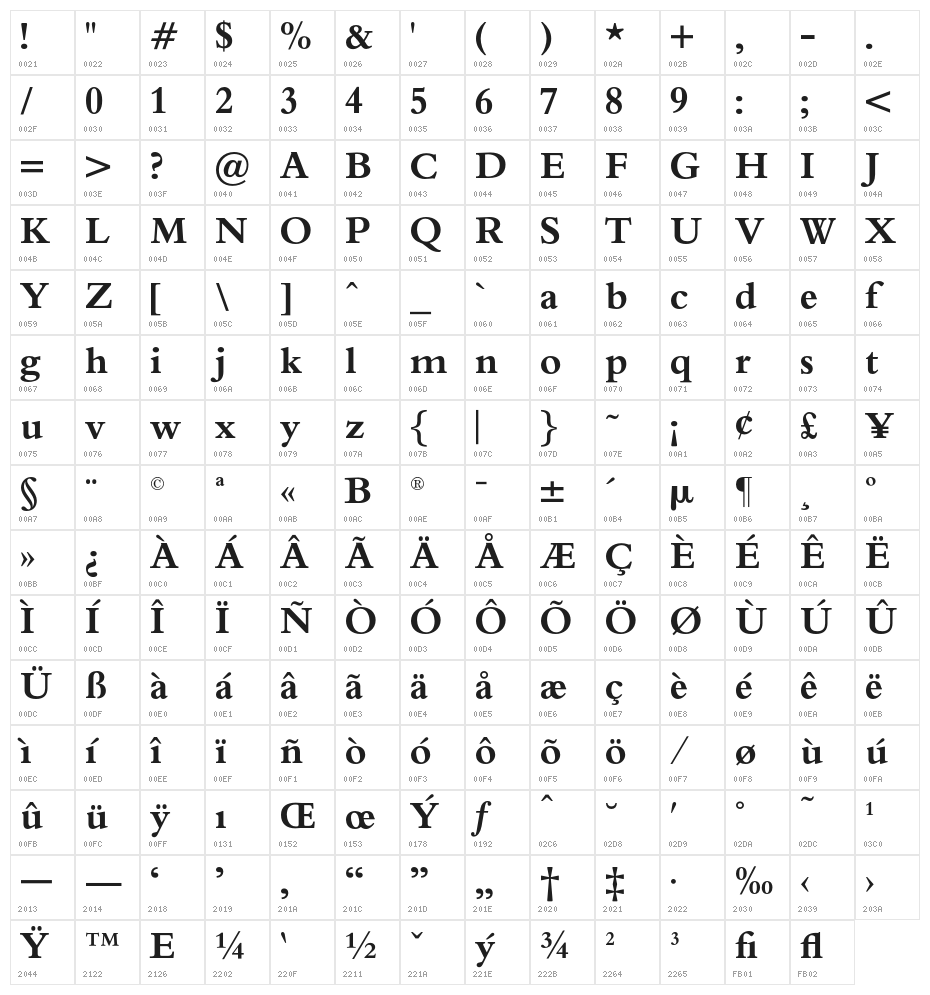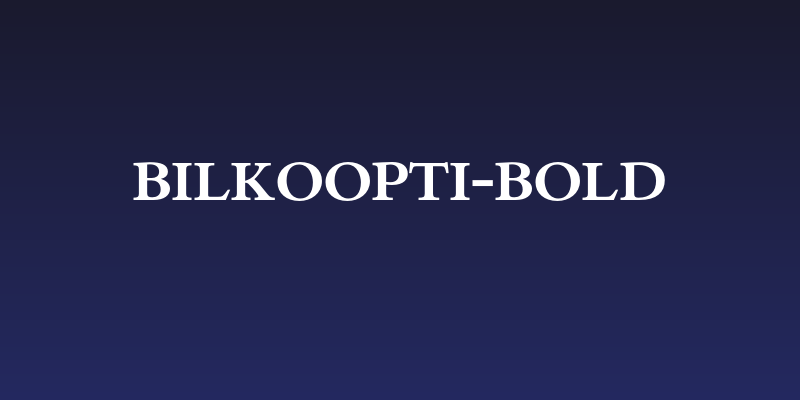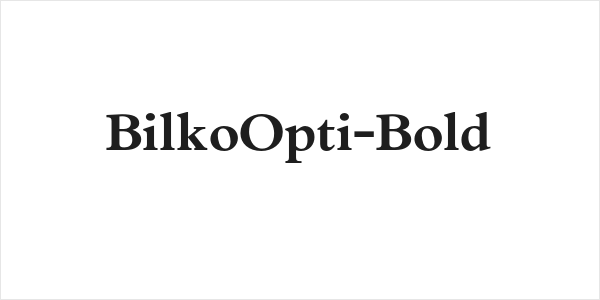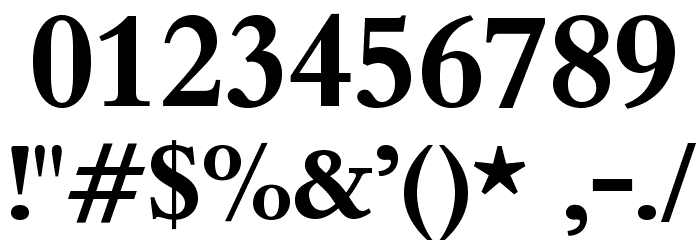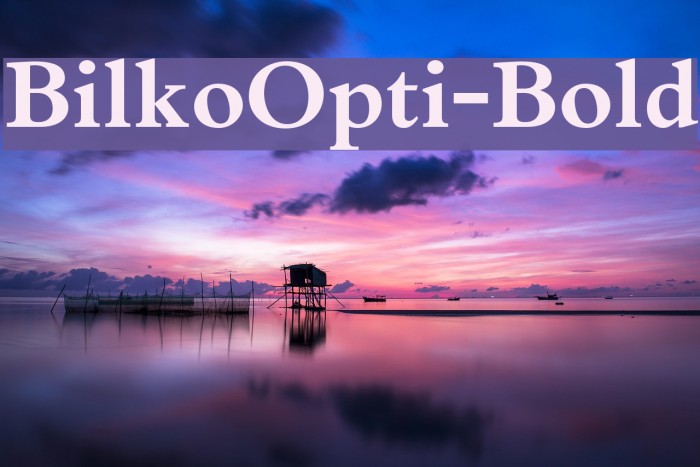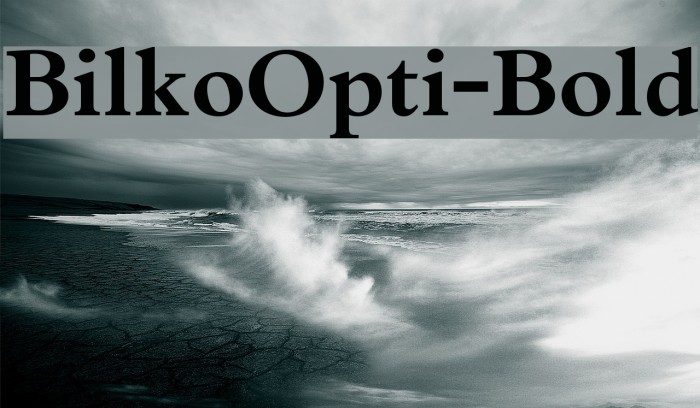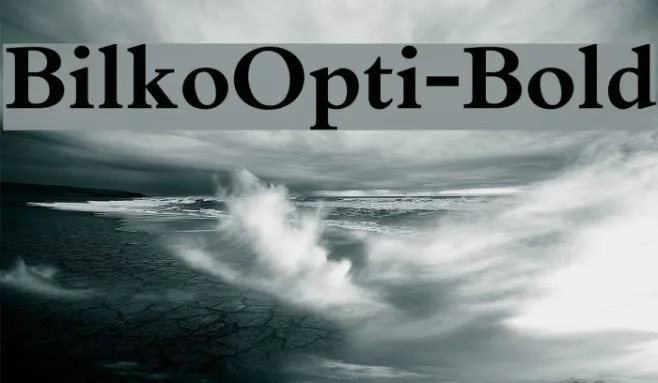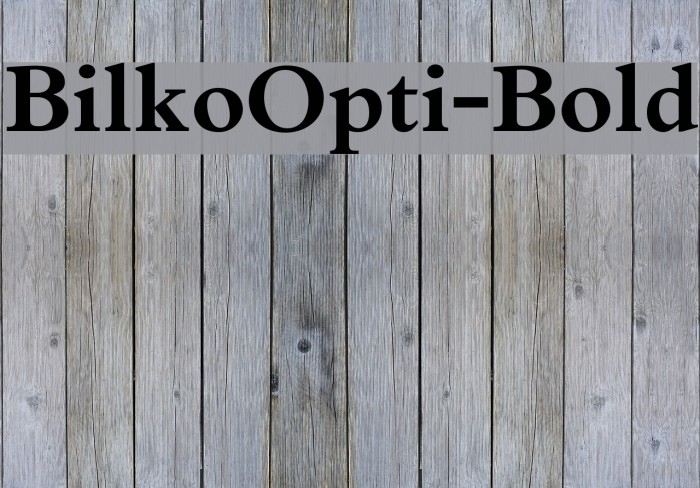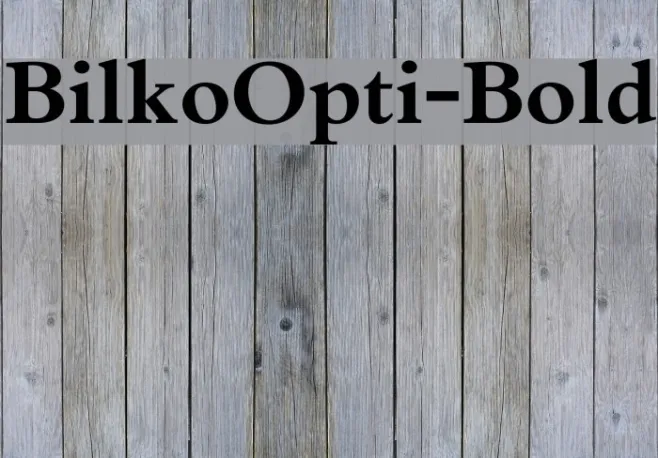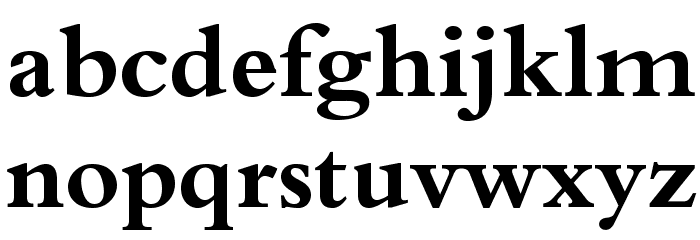
BilkoOpti-Bold Font
BilkoOpti-Bold Description
This font is a bold serif typeface characterized by its strong, authoritative presence. The uppercase letters exhibit a classic serif style with pronounced, sharp serifs that enhance readability and lend a traditional feel. The lowercase letters maintain a consistent weight, offering a balanced and harmonious look. Numbers are clear and robust, making them suitable for both display and text purposes. Special characters are well-defined, ensuring versatility across various applications. The overall design is timeless, combining elegance with functionality, making it ideal for formal and professional settings.
| Proposed Projects | Ideal for book covers, editorial headlines, branding, and formal invitations. |